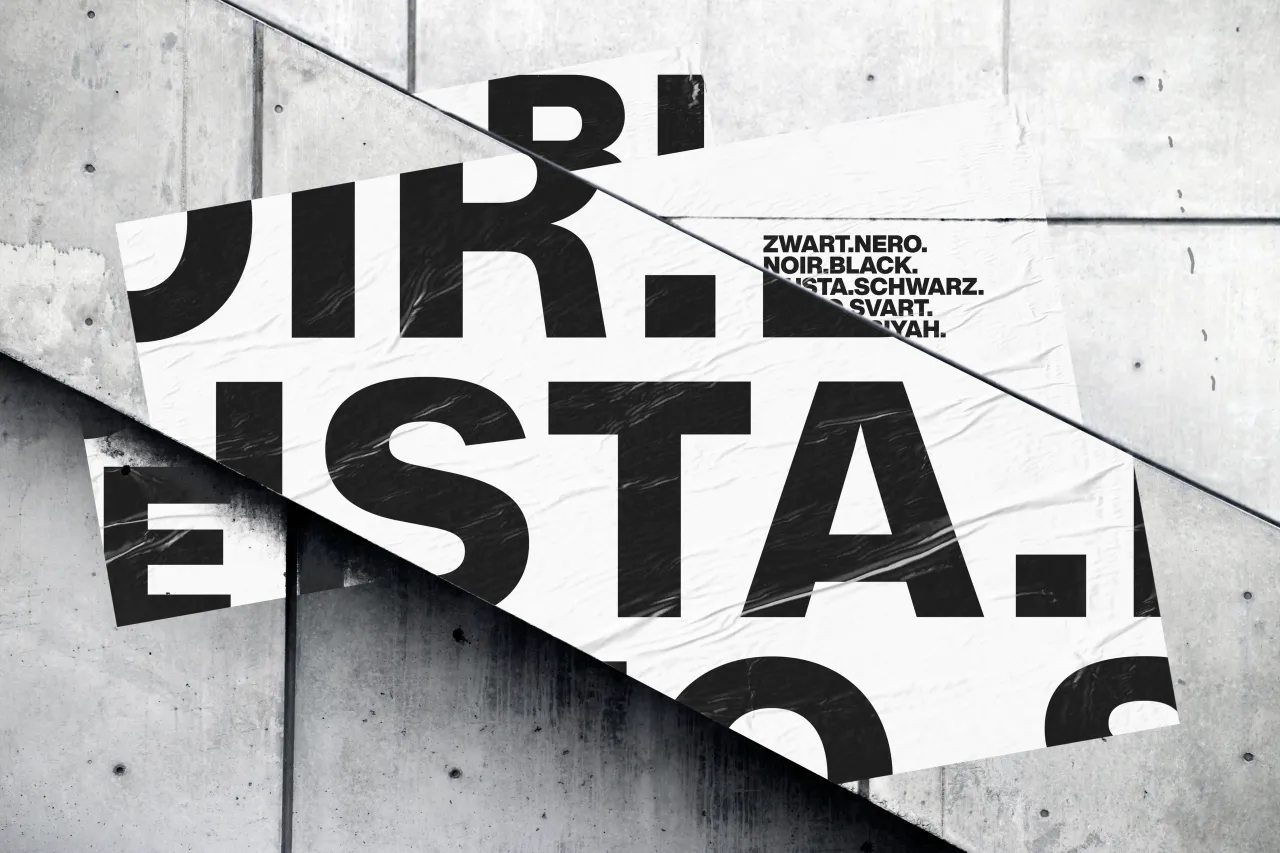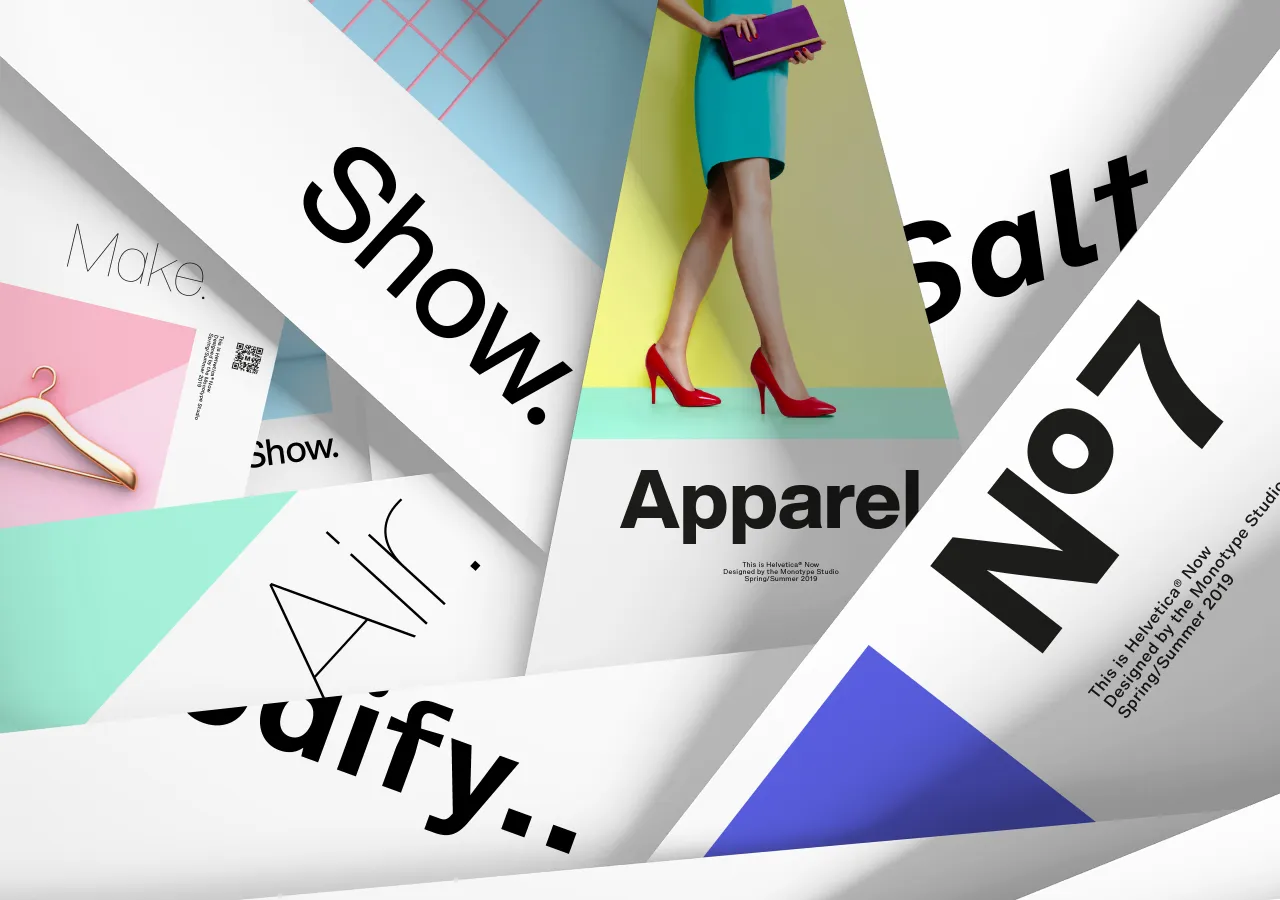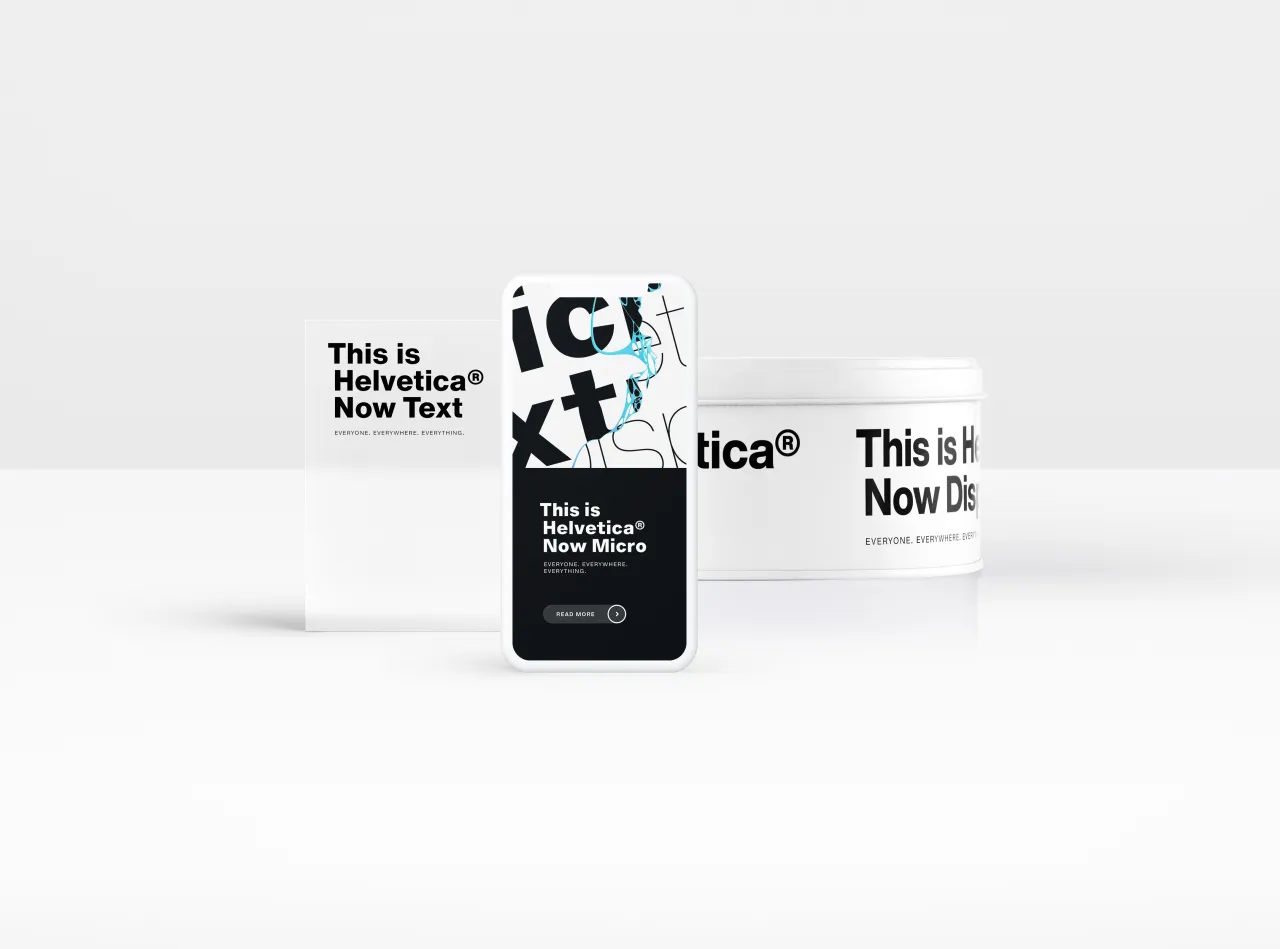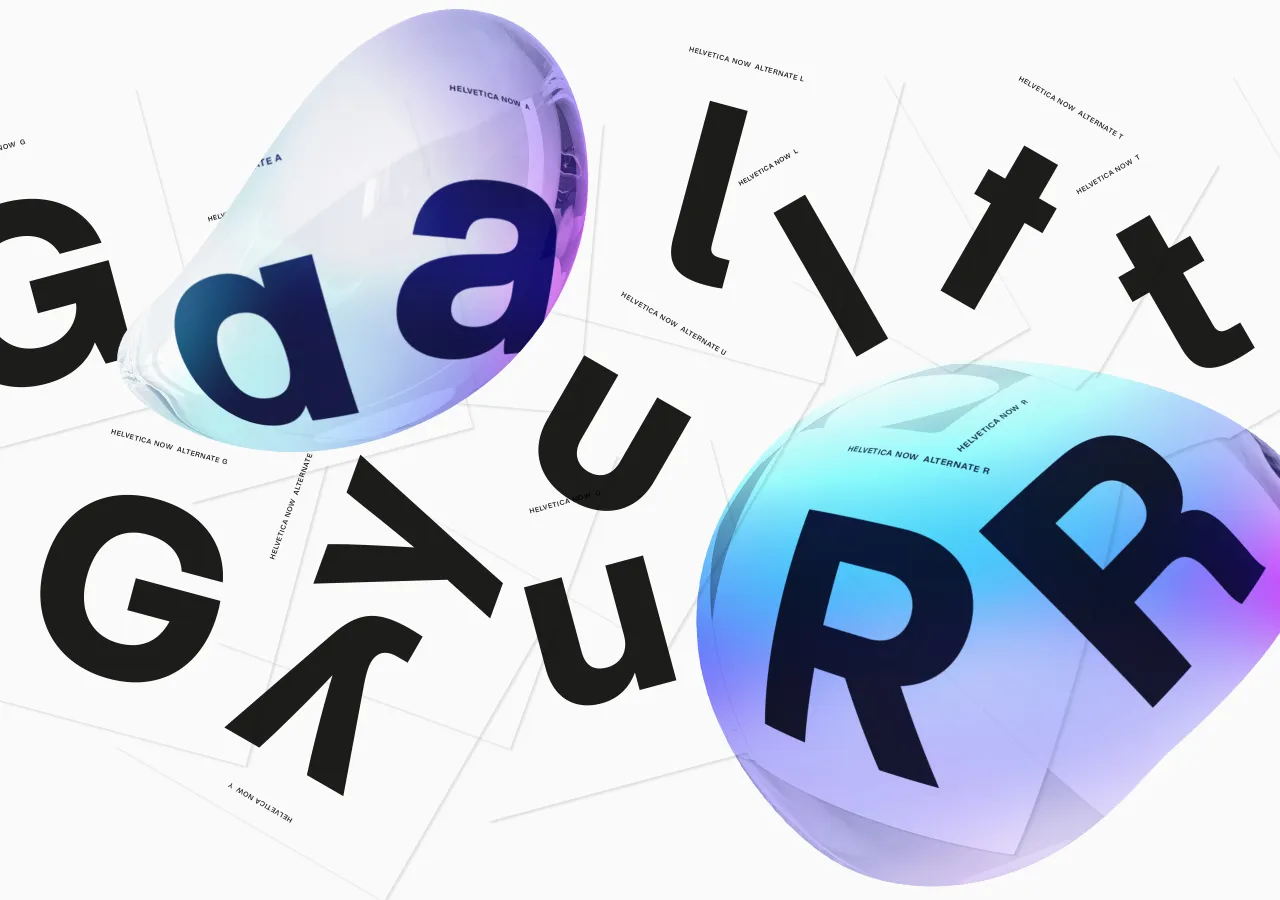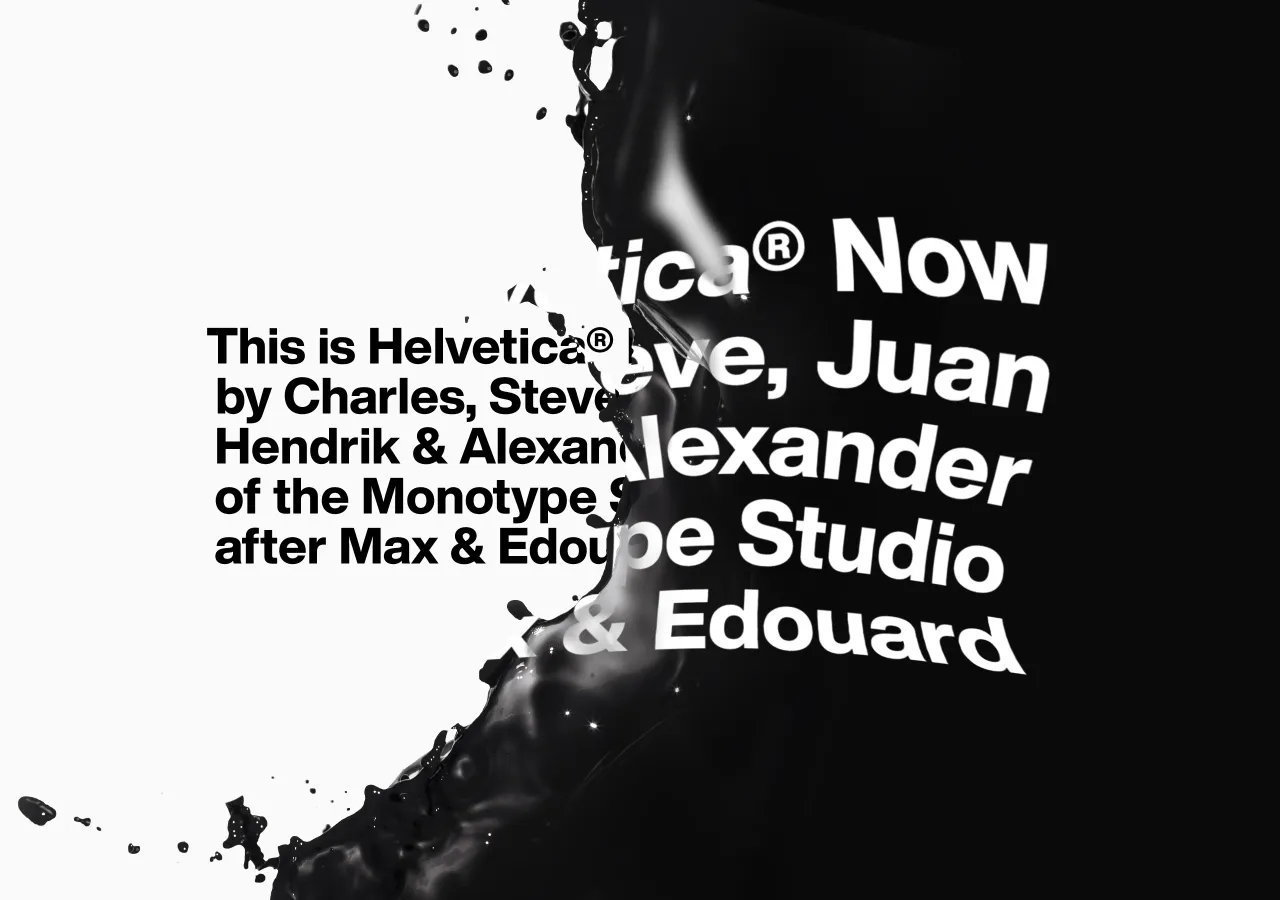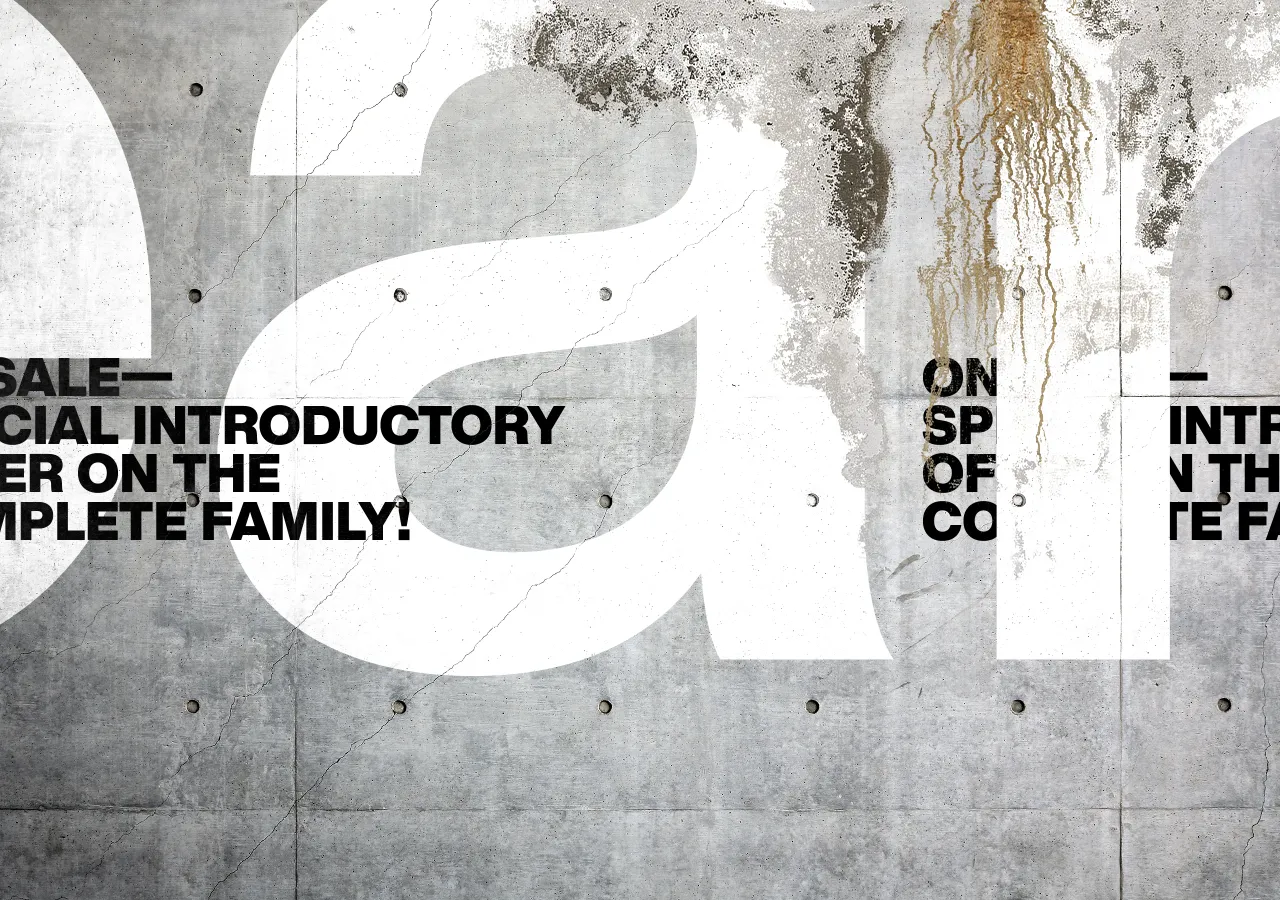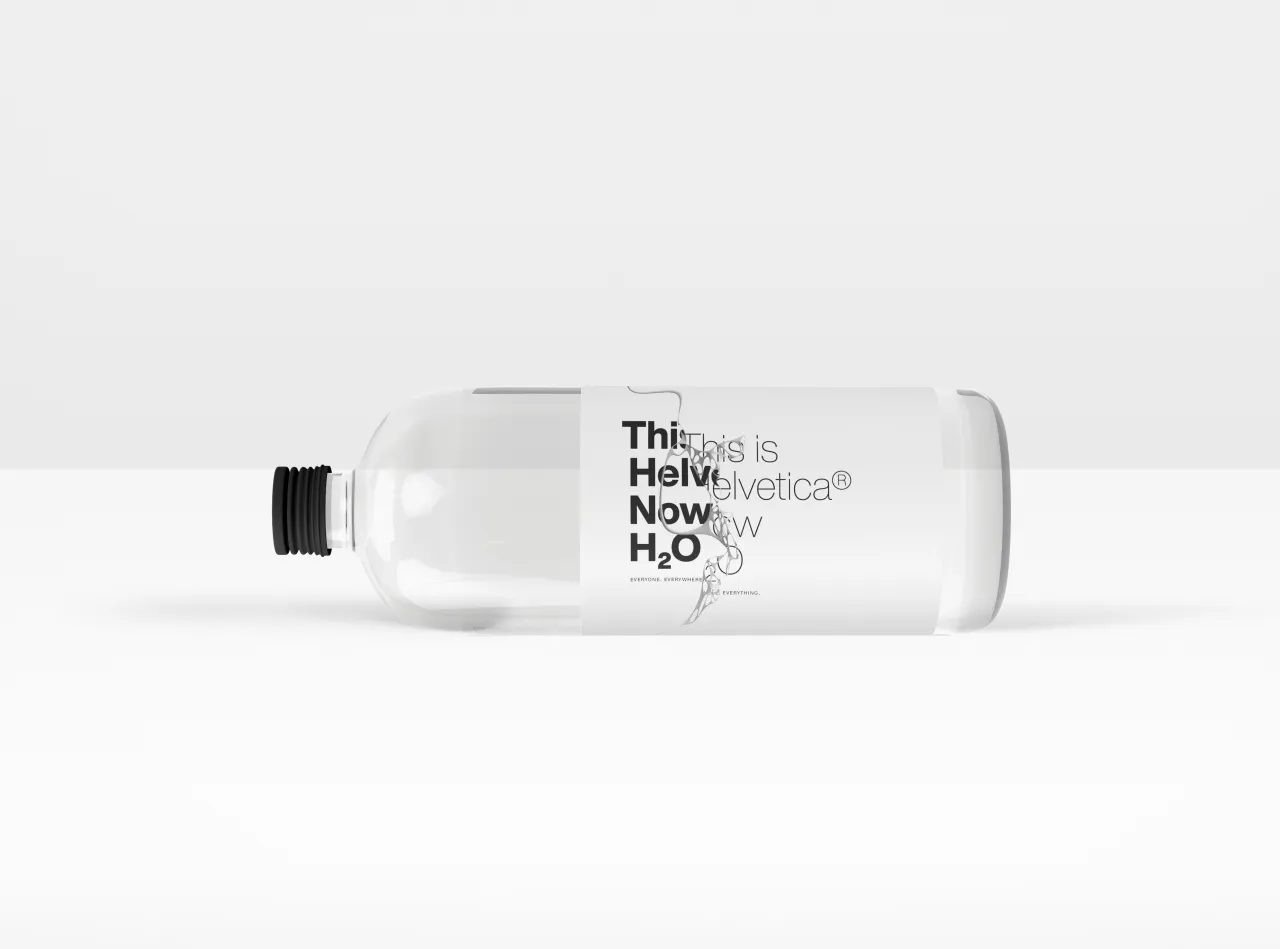
Monotype launches the first redesign in 35 years of the world's most ubiquitous font, Helvetica
Monotype has today introduced the Helvetica Now typeface, a new family of fonts that have been carefully and respectfully re-drawn for the modern era.
Consisting of 48 fonts and three optical sizes, the typeface has been produced from size-specific drawings and with size-specific spacing and is the first redesign in 35 years of what many argue is the world's most ubiquitous font, Helvetica.
Every character has been redrawn and refit, and a host of useful alternates have been added to help brands meet modern-day branding challenges. Espousing the simplicity, clarity, timelessness and global appeal of the typeface’s storied tradition, Helvetica Now aims to be more sophisticated and graceful than its predecessors.
The Helvetica family has been used by countless brands and creative professionals, in millions of designs since its inception. The typeface embodies clean and versatile design, and the Helvetica Now typeface continues the tradition established by the Helvetica and Neue Helvetica families while introducing a number of improvements. To learn more, watch the video below, narrated by Charles Nix, type director at Monotype.
"Helvetica Now is the tummy-tuck, facelift and lip filler we’ve been wanting, but were too afraid to ask for,” said Abbott Miller, Partner at Pentagram. “It offers beautifully drawn alternates to some of Helvetica’s most awkward moments, giving it a surprisingly thrillingly contemporary character."
The Helvetica Now typeface is available in three optical sizes – Micro, Text and Display. Helvetica Now Micro solves the decades-old spacing and legibility shortcomings of single-master versions of the family at the smallest sizes (4- to 7-points). It also offers more open apertures, wider forms, a larger x-height, open spacing, larger accents, optical adjustments to the shapes of complex forms, and a number of other changes to produce a highly-legible font at very small sizes.
Helvetica Now Display, meanwhile, provides a range of weights from Hairline to Extra Black, with appropriate spacing, for 14-point settings and up. Big, bold, attention-grabbing Helvetica no longer requires the trimming of characters, manual adjustment of spacing and kerning, or the resizing and repositioning of punctuation necessary with the legacy versions.
Helvetica Now Text is a true workhorse, and comes in a range of weights from Thin to Black with carefully combed spacing and kerning. Helvetica Now Text is easy and pleasing to read, and an ample palette for demanding information-rich design environments.
Elsewhere, newly designed alternate glyphs have been added across the entire range of the family, including a single-story ‘a’ and a straight-legged capital ‘R’. Every weight and optical size offers a host of new and useful glyphs, including a suite of Helvetica arrows.
Every letter, number, punctuation mark and symbol in the family – nearly 40,000 in all – have been redrawn, analysed and tested for improved legibility and performance. The result is a better reading experience, as the design’s improved forms and more even spacing mean clearer communication.
"Today, we’re asking Helvetica to do more than it ever has before. Previous versions of the typeface weren’t designed to be used in graphic applications that have developed over the last 30 years. As a result, older versions of the font were lacking in some important areas," said Charles Nix, type director at Monotype.
"Helvetica Now solves the legibility and style challenges that brands using Helvetica have consciously and unconsciously faced for years. The design introduces a new chapter in the Helvetica story—expanding its look and utility while reinvigorating its heritage."
Helvetica Now is already getting some feedback from the design community. Erik Spiekermann, founder and partner, Edenspiekermann, said: "This is the typeface Max Miedinger and Eduard Hoffmann would have designed back in 1957 if they had known about offset printing, small screens, browsers, digital design tools and UI designers."
David Heasty, Partner at Triboro, adds: "I’m having fun with Helvetica Now. Bringing in alternate characters like the round ‘I’ dots and the straight-legged ‘R’ will likely annoy Helvetica purists, but I can totally get behind the flexibility and character this adds. I think the Micro cut goes a long way in making any Helvetica usable for longer texts. I wish I had Helvetica Now sooner!"